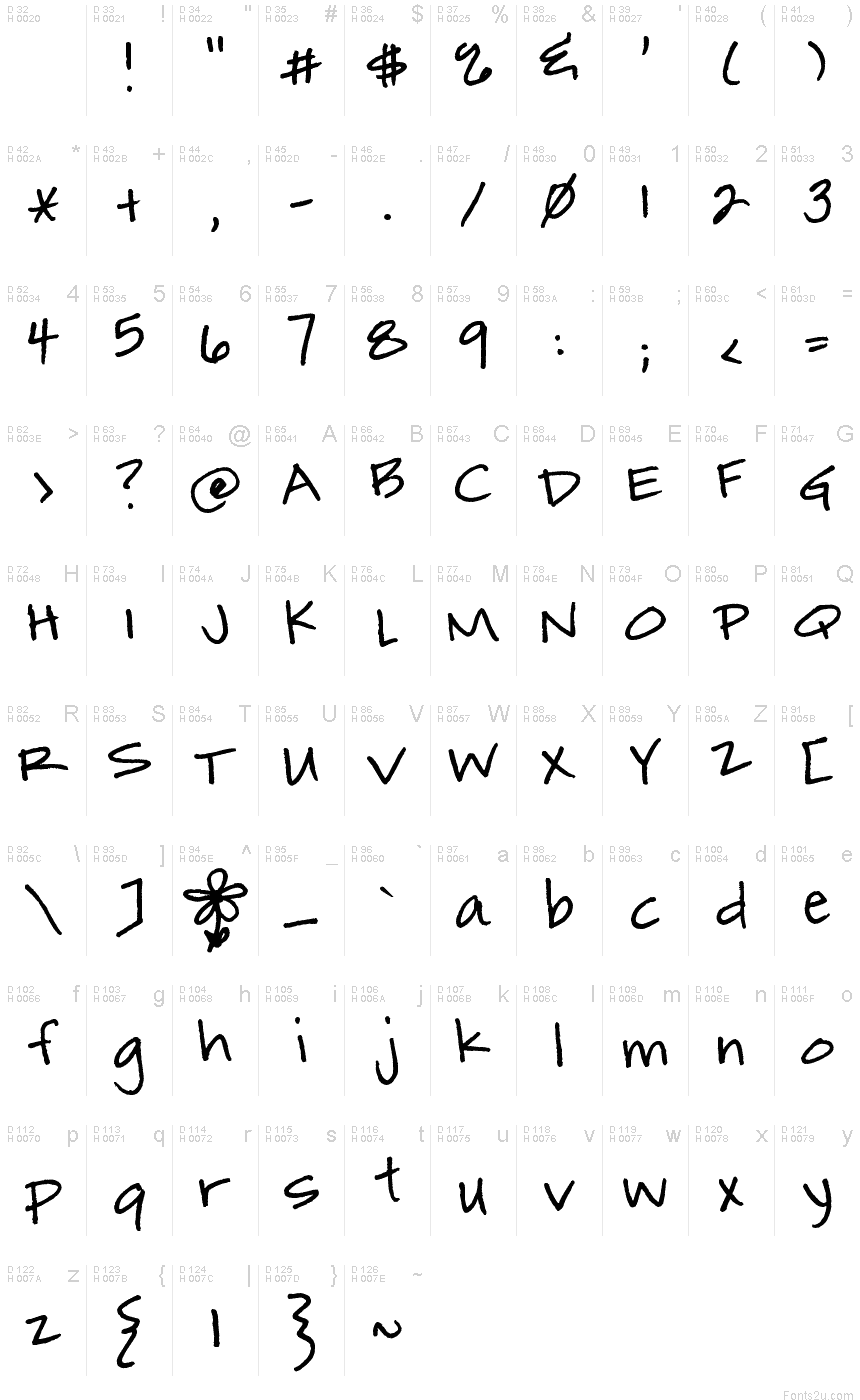
Marmalade Toast from FontPanda.com is a free handwritten font with the quick, uneven look of lettering made directly on paper. Tall, loosely spaced forms mix sharp turns with broad loops, and the changing stroke width keeps each line lively without looking carefully polished.
Its rough DIY character is well suited to gig posters and album artwork. Skate merchandise and food packaging can use those raw marks to suggest something personal and homemade. In branding, it is convincing for labels or studios seeking an informal signature-like identity.